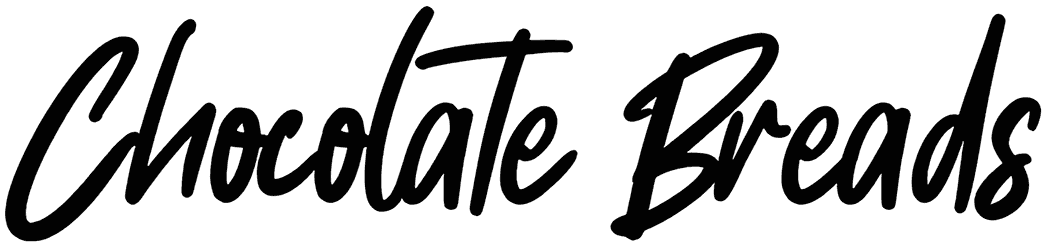
Chocolate Breads Font
Choosing modern and casual words can be a different choice for your cool coming design. This handwritten font, which is known as Chocolate Breads, consists of smooth and natural letters. With A-Z characters, this script font would be an excellent choice for many innovative projects, such as tattoos, posters, logos, and the like.